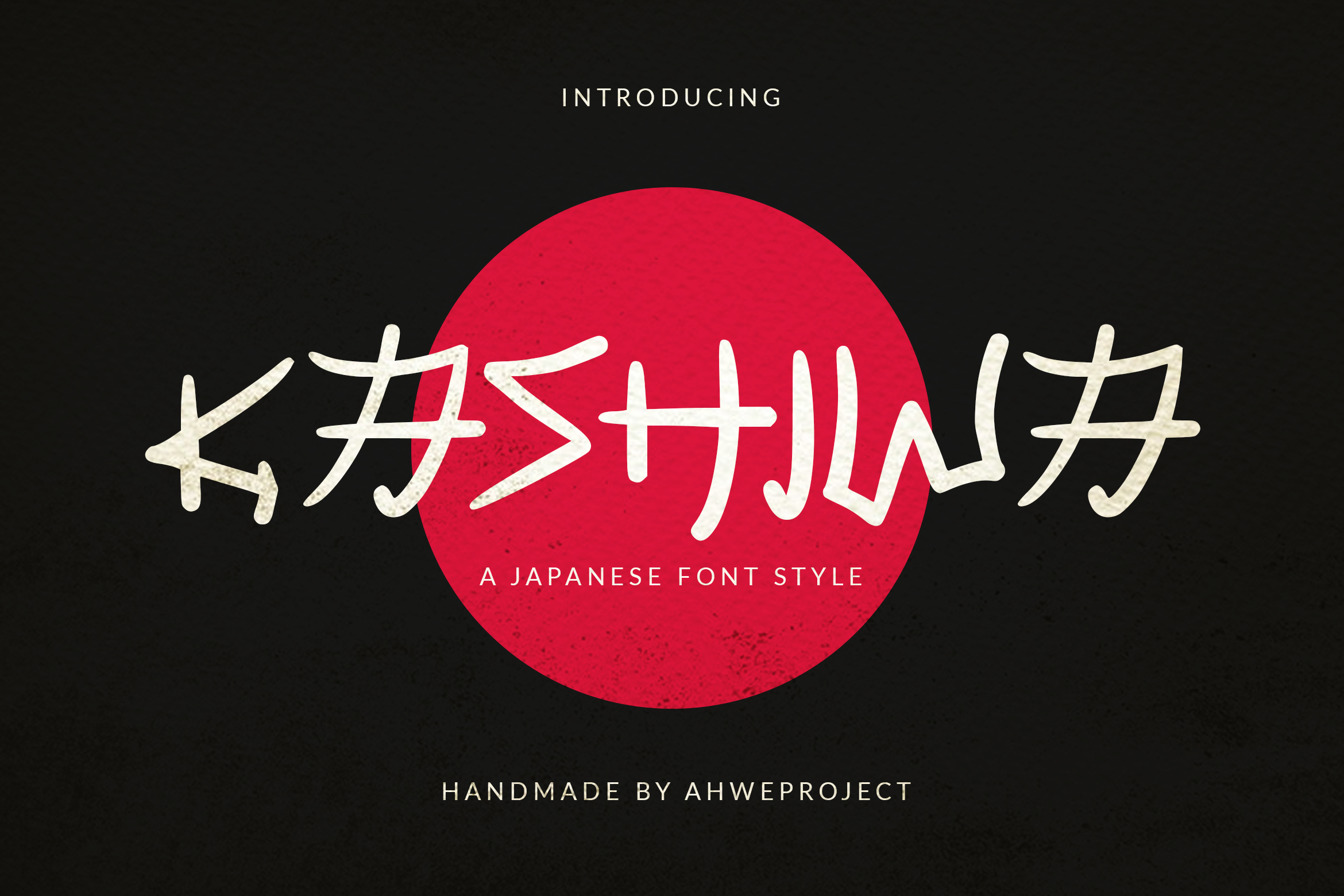
Kashiwa - Japanese Font Font
About Kashiwa - Japanese Font
Kashiwa is an interesting japanese styled display font. Use this font for any crafting project that requires a personalized look!